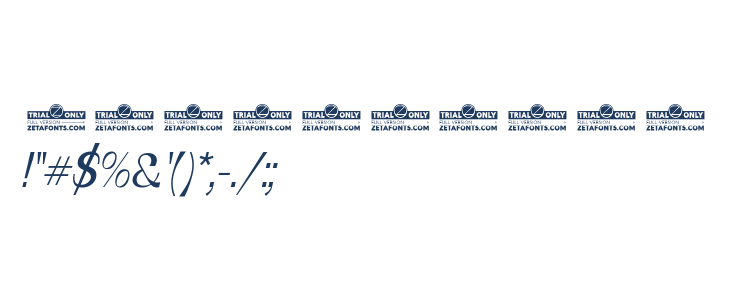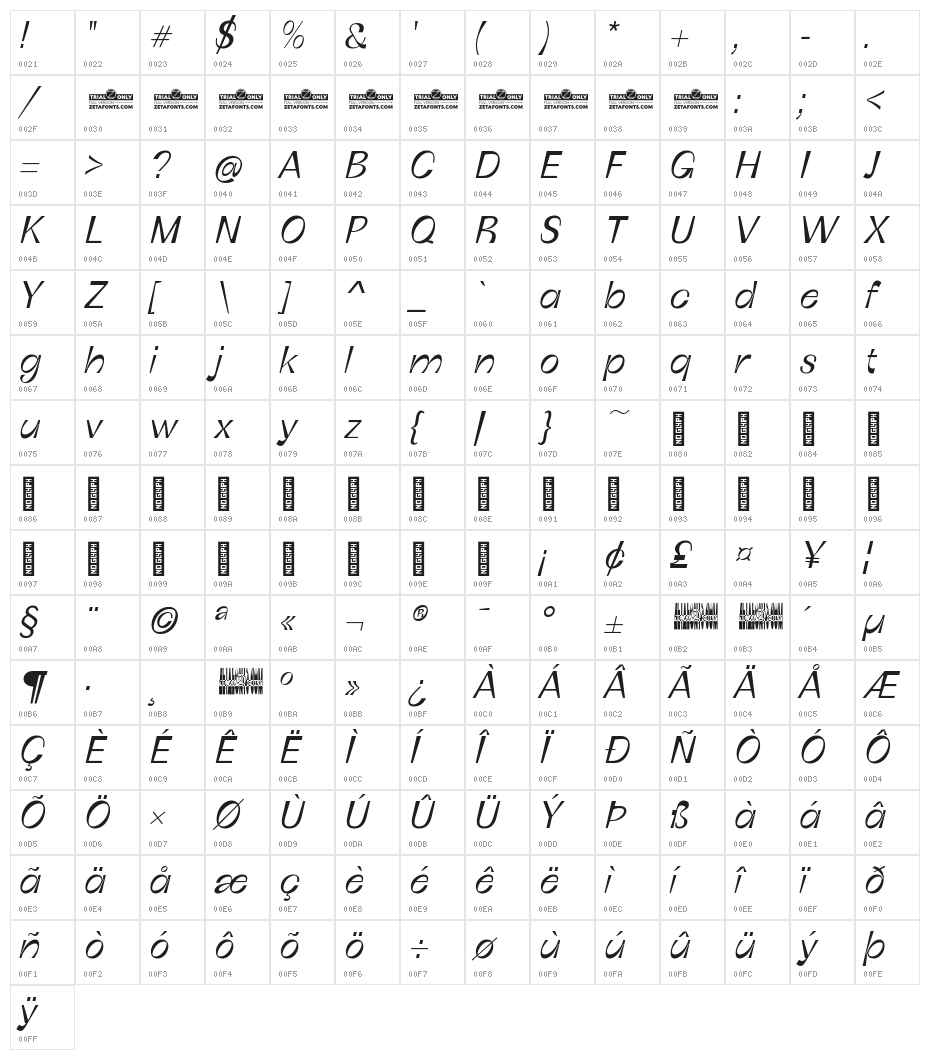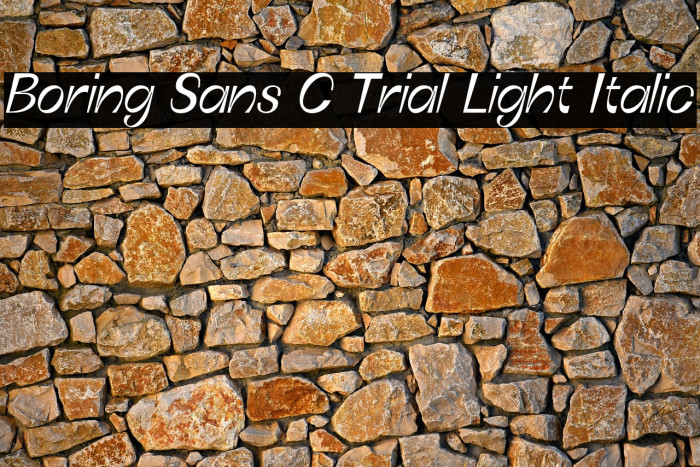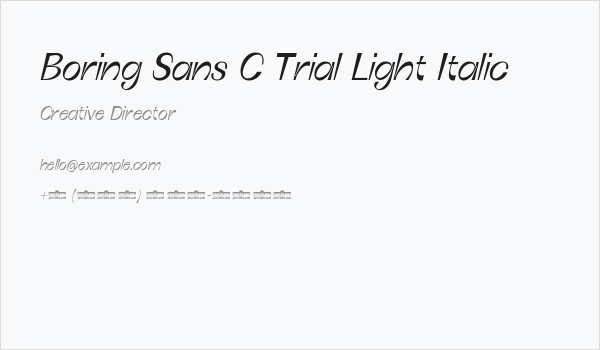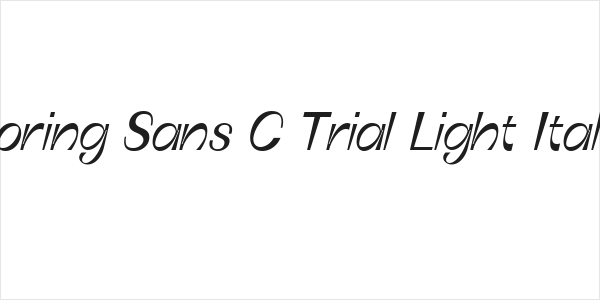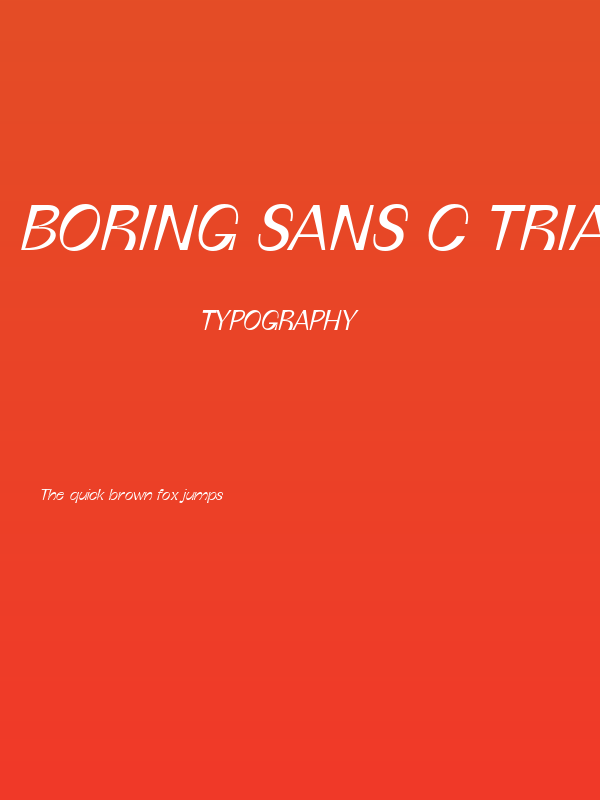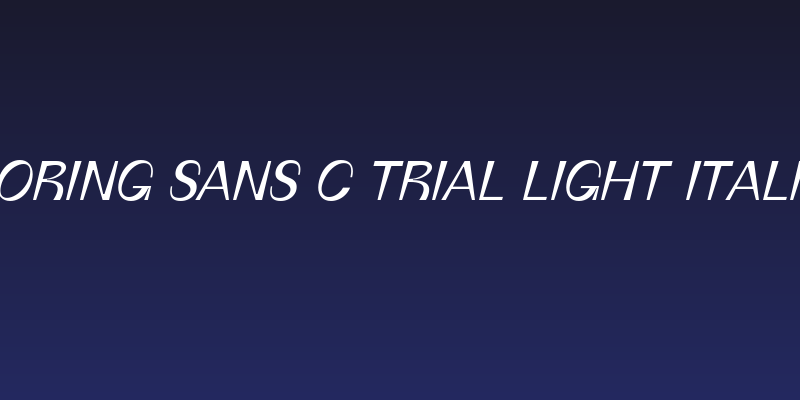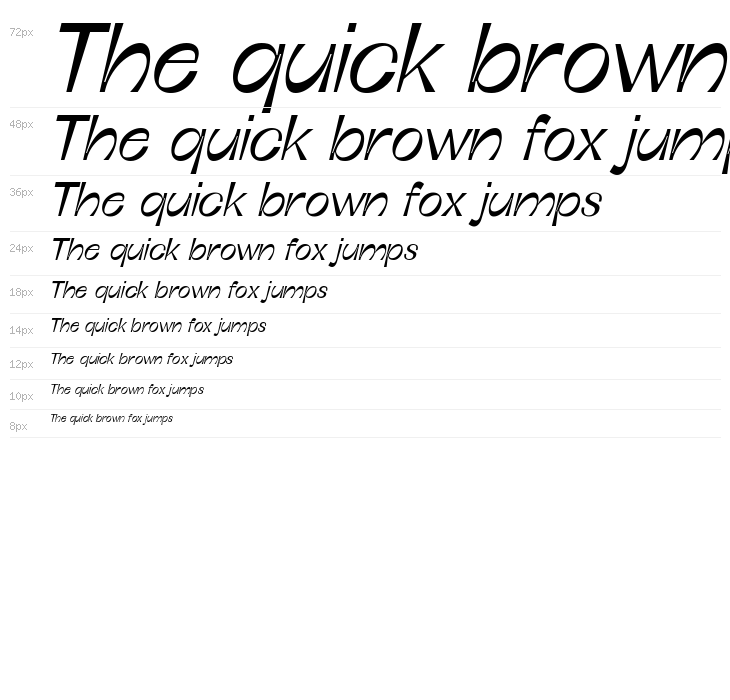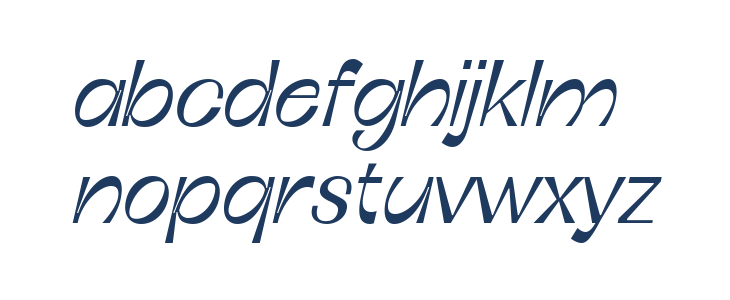
Boring Sans C Trial Light Italic Font
Boring Sans C Trial Light Italic Description
This font features a sleek and modern sans-serif design with a light weight and italic style. The characters are slightly condensed, giving it a streamlined appearance. The strokes are consistent in thickness, providing a low contrast that enhances readability. Its clean lines and subtle curves make it suitable for contemporary design projects. The font includes a full set of uppercase and lowercase letters, numbers, and a variety of special characters, ensuring versatility for different applications.